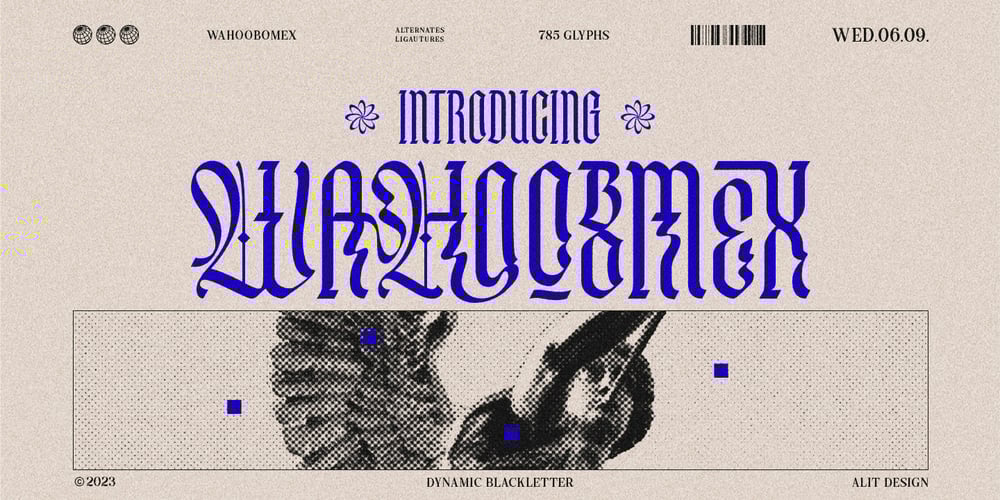
Wahoobomex Font Family was designed by Alit Suarnegara and published by Alit Design. Wahoobomex contains 1 styles and family package options. Introducing the Wahoobomex Dynamic Blackletter Font – A Modern and Strong Typeface with 785 Characters, Ligatures, and Alternates!Are you looking for a font that combines the timeless charm of blackletter typefaces with a modern twist? Look no further than the Wahoobomex Dynamic Blackletter Font. This remarkable typeface strikes the perfect balance between tradition and contemporary design, making it ideal for a wide range of creative projects.